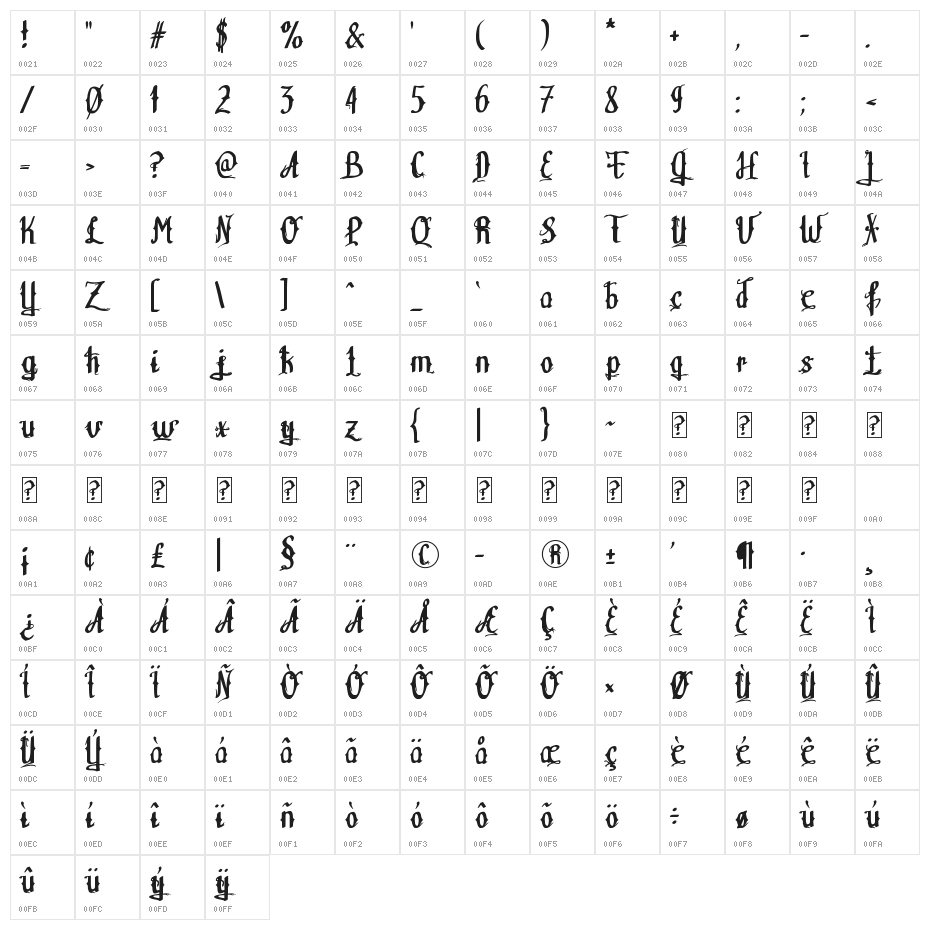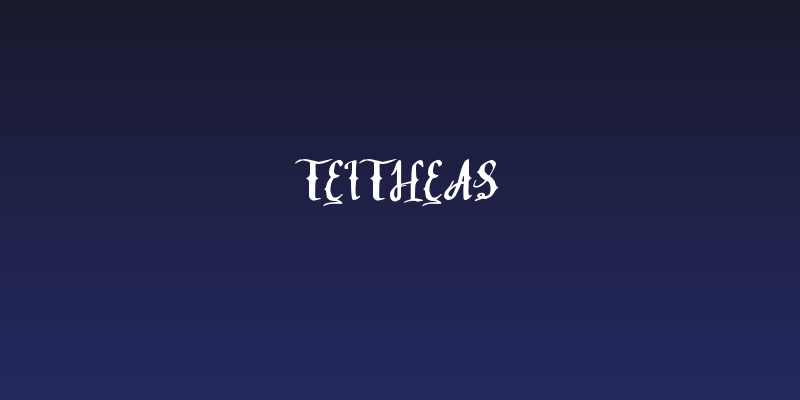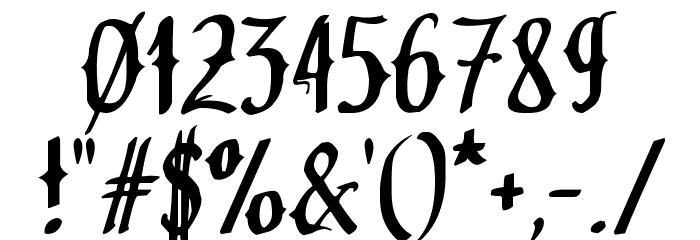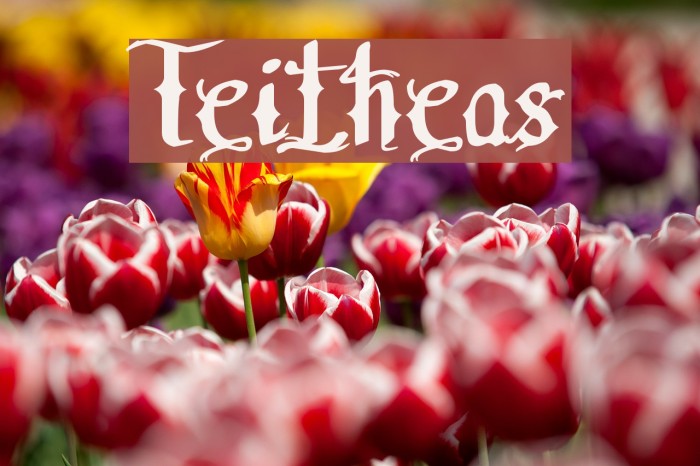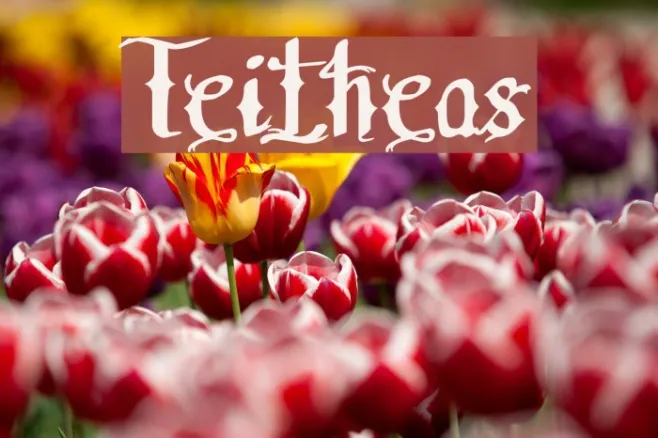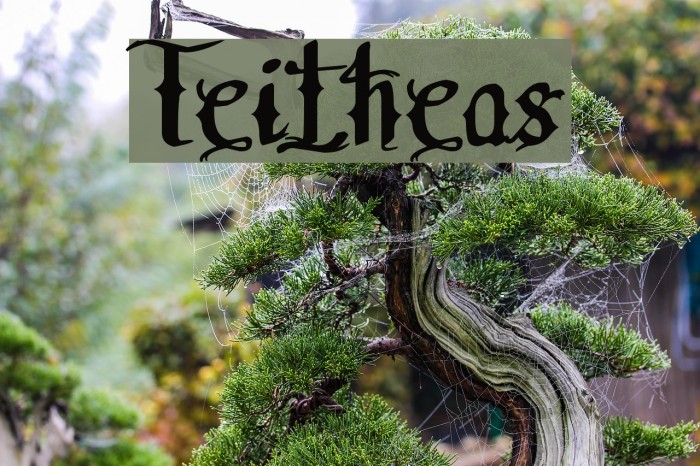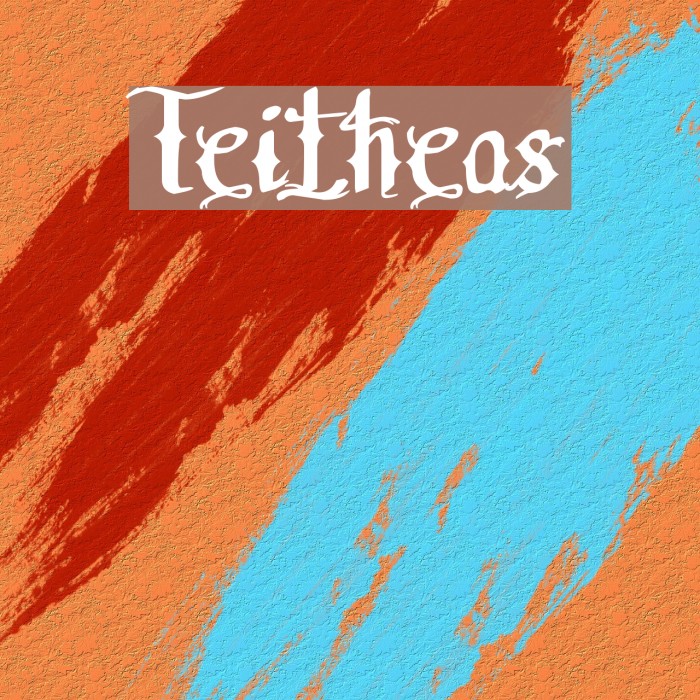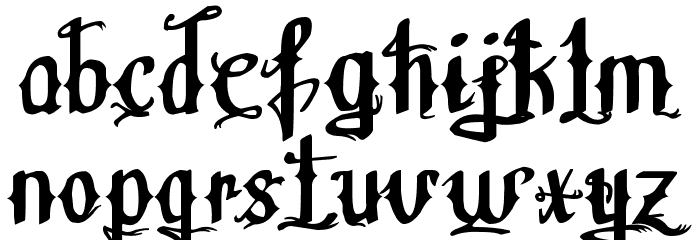
Teitheas Font
Teitheas Description
This font features a bold and dramatic style with intricate, sharp edges and flourishes reminiscent of traditional calligraphy. The uppercase letters are particularly ornate, with exaggerated serifs and decorative elements that give them a gothic appearance. The lowercase letters maintain a consistent style, with a slightly more subdued flair, yet still exhibit the same attention to detail. Numbers and special characters are designed to match the overall aesthetic, ensuring a cohesive look across all text. The font's high contrast between thick and thin strokes adds to its striking visual impact, making it ideal for attention-grabbing designs.
| Overall Style | Gothic, Decorative |
| Proposed Projects | Perfect for tattoo designs, gothic-themed posters, album covers, or any project requiring a dramatic and artistic touch. |